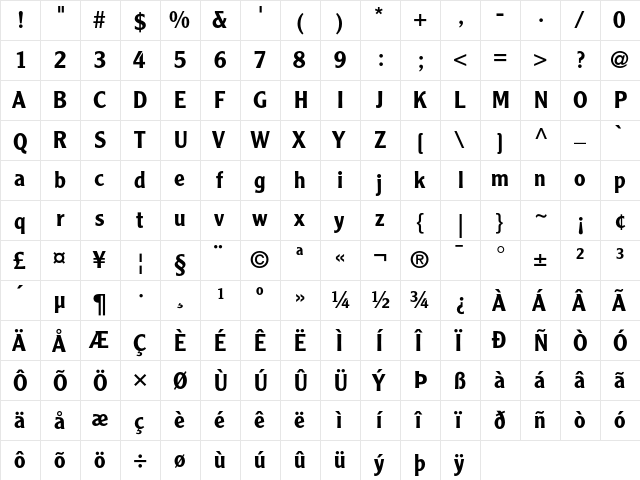
Clearface Gothic LH 65 Medium
Design Context for Clearface Gothic LH Typeface
Clearface Gothic LH takes a clean, functional approach — its unadorned letterforms prioritise legibility and work reliably across screen and print environments.
Font Pairing: Works well alongside a characterful serif or display font that can carry the expressive load while Clearface Gothic LH handles the functional copy.
Pro Tip: Use Clearface Gothic LH for UI labels, navigation, and short-form body copy where clean legibility is the priority.